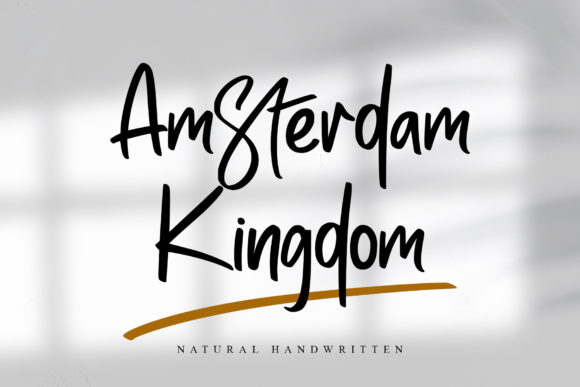
The Amsterdam Kingdom Font: A Game-Changer for Your Design Projects
I’ll never forget the time I was working on a branding project for a boutique hotel, and I just couldn’t find the perfect font to capture their unique vibe. The client wanted something elegant, yet playful, and I was determined to deliver. That’s when I stumbled upon the Amsterdam Kingdom font, and it was love at first sight! 💕
This beautiful handwritten font has a unique feel and a stunning impact that can add a spark to any design project. In this article, I’ll share my honest review, a step-by-step guide on how to use it, and some valuable insights into its features and alternatives.
- 💫 Unique and elegant handwritten style
- ✅ PUA encoded for easy access to glyphs and ligatures
- 🎨 Highly versatile for various design projects, from branding to crafting
- 🔥 Stunning impact that can elevate your designs
While Amsterdam Kingdom is an amazing font, there are a few things to keep in mind:
- 🤔 Some users might find the font a bit too ornate for certain projects
- ⚠️ Limited availability of language support (but it’s still a great option for English and some European languages)
The Designer Inspiration Behind Amsterdam Kingdom
Amsterdam Kingdom was crafted with love and care by a talented font designer who drew inspiration from the city’s rich history and cultural heritage. The font’s unique feel and stunning impact are a testament to the designer’s skill and attention to detail.
Q: Is Amsterdam Kingdom suitable for body text?
A: While Amsterdam Kingdom is a beautiful font, it’s best suited for headlines and titles. For body text, you may want to choose a clearer, more legible font.